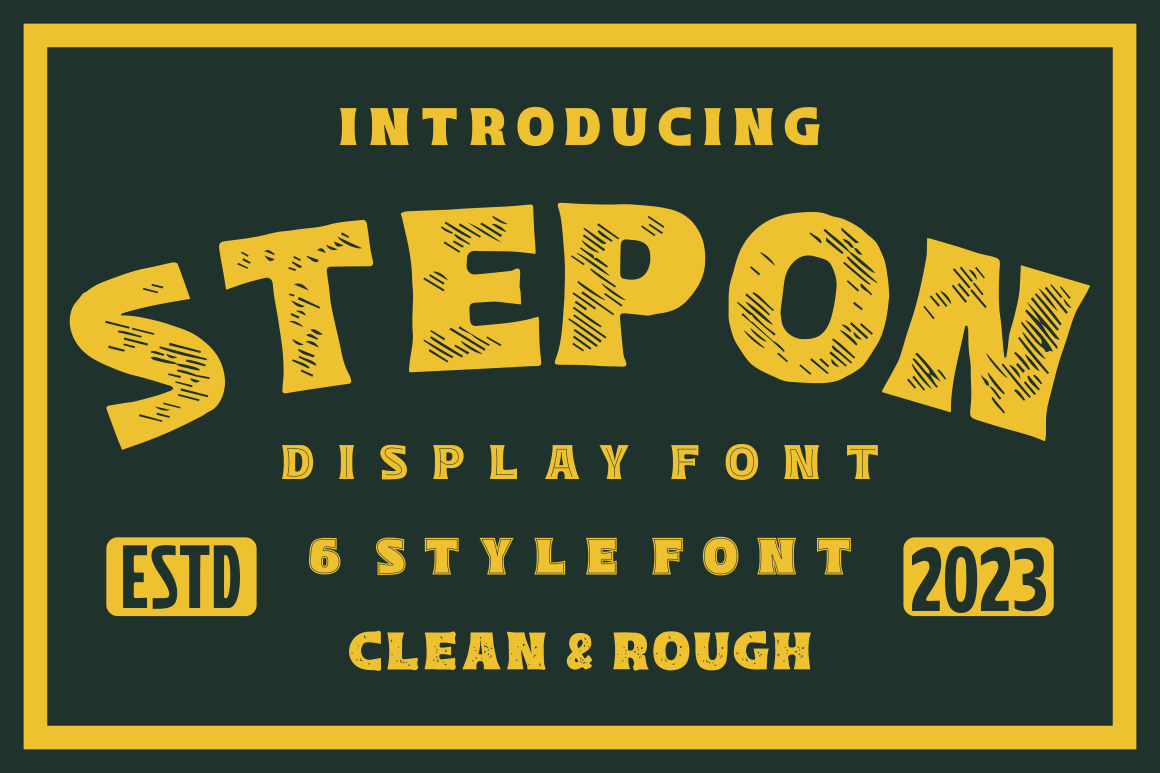
Stepon - Various Display Font
Stepon is a versatile display font that offers a plethora of creative possibilities. This font is characterized by its bold, modern, and unique design, making it an excellent choice for a wide range of projects.
The distinctive feature of Stepon is its versatility, with six different variations that include inline, outline, texture, and rough styles. Each variation stands strong on its own and can be easily combined with others, allowing you to unleash your creativity in various ways.
Whether you're working on a logo, branding materials, invitations, packaging, posters, headlines, business collateral, greeting cards, magazines, films, or any other design project, Stepon has got you covered.
With its multiple variations and bold design, Stepon will give your projects a modern and eye-catching edge. It's the perfect font to create striking, memorable designs that leave a lasting impression.
Elevate your designs with Stepon and explore the endless possibilities this versatile font offers.